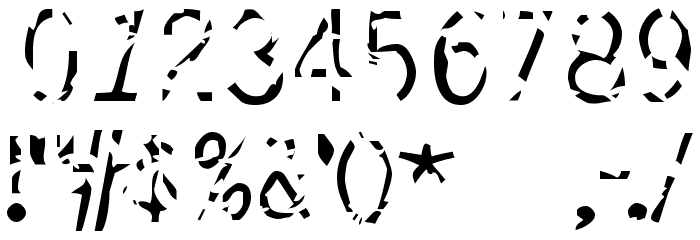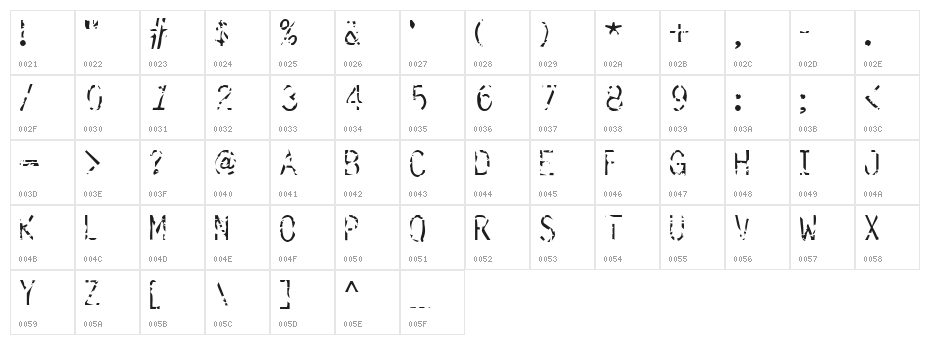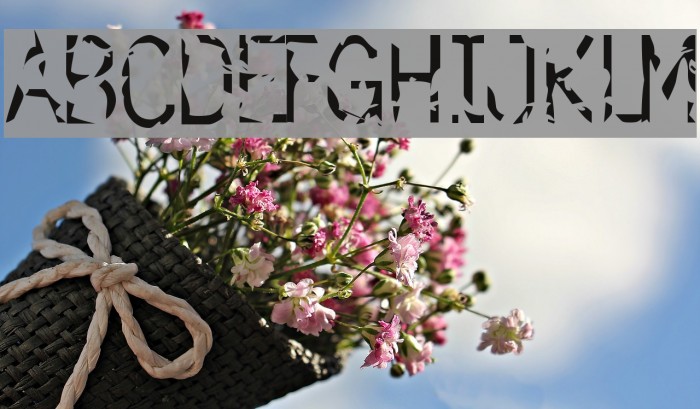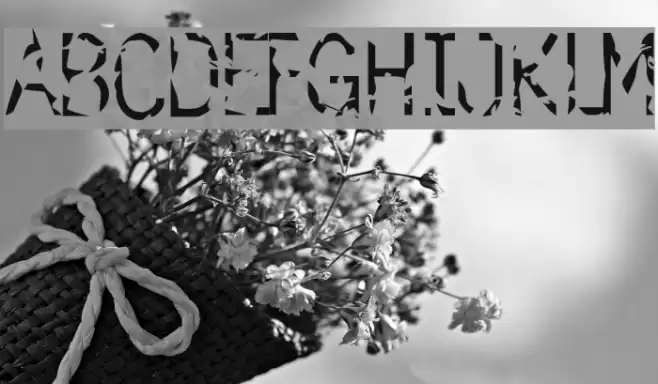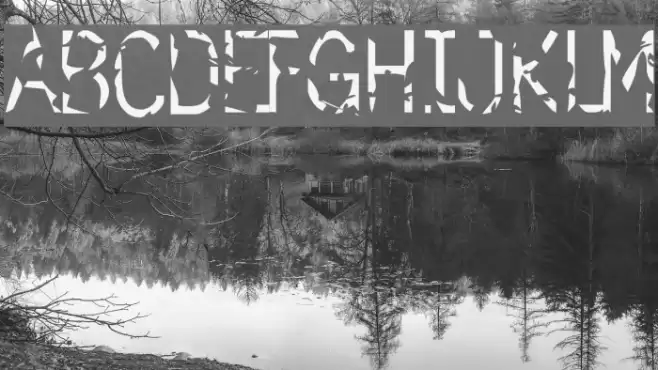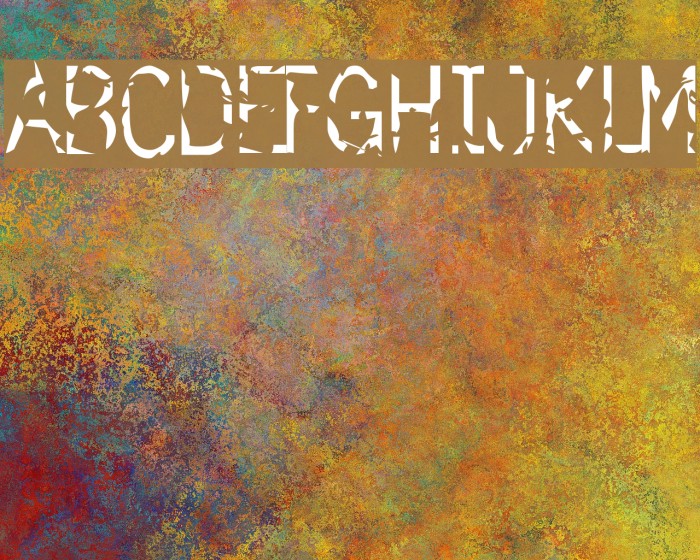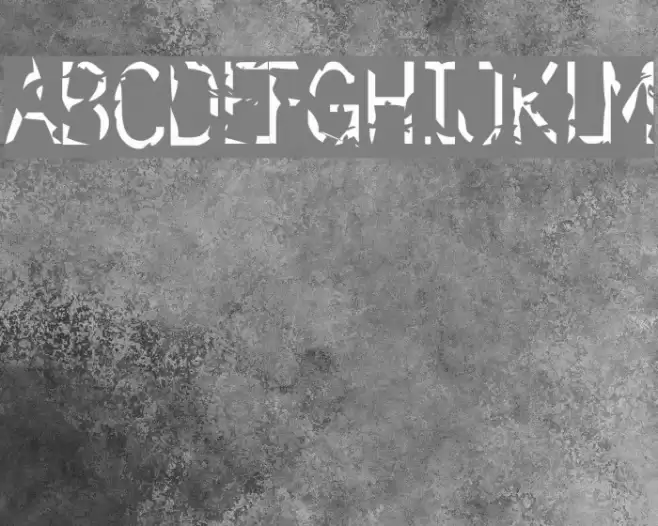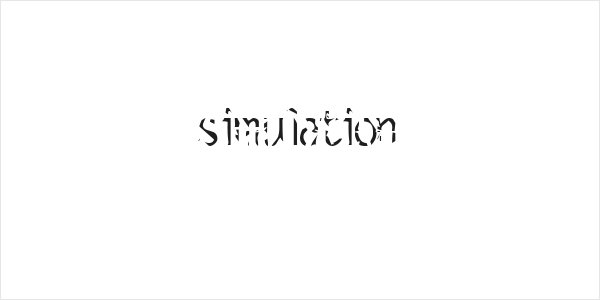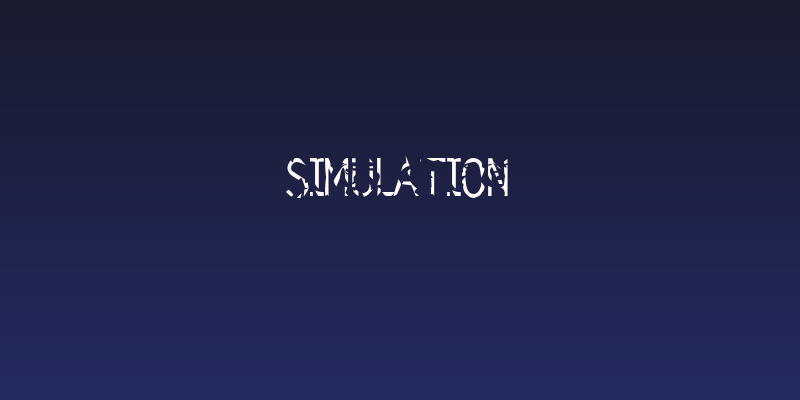
simulation Font
simulation Description
This font features a highly decorative and fragmented style, characterized by its unique cut-out patterns within each character. The design is bold and eye-catching, making it suitable for creative and artistic projects. The uppercase and lowercase letters maintain a consistent style, with sharp angles and irregular shapes that give the font a dynamic and edgy appearance. The numbers and special characters follow the same design principles, ensuring a cohesive look across all elements. This font is ideal for projects that require a bold statement or an unconventional aesthetic.
| Proposed Projects | Ideal for posters, album covers, branding for edgy or artistic products, and any design needing a standout, unconventional typeface. |